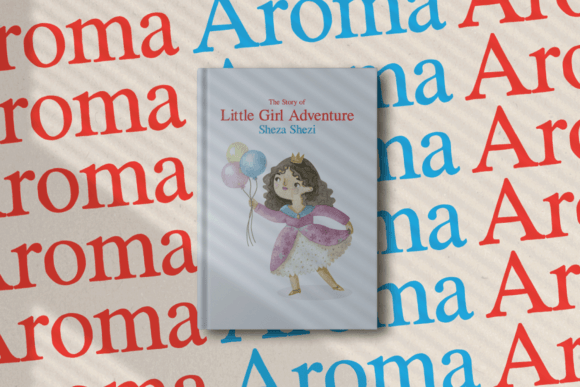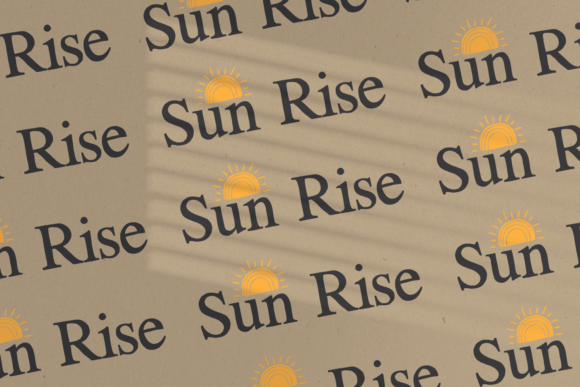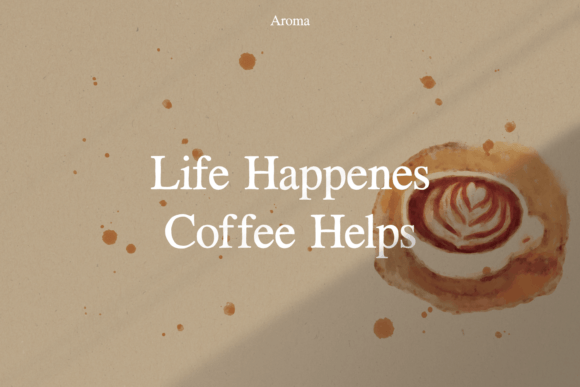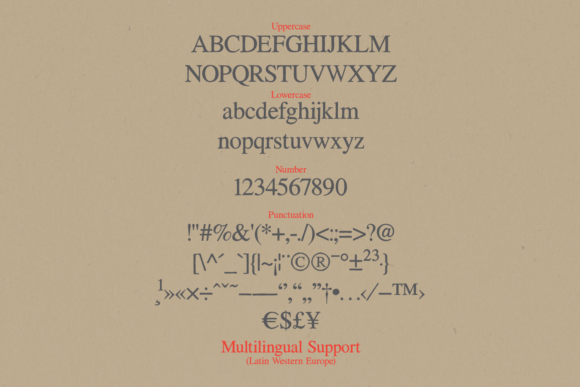
This typeface, called Aroma, was made using digital pencil strokes to give it a modern touch while still drawing inspiration from the New Time Roman font. The youthful beauty of classic serif typography combined with the accuracy and fluidity of digital graphics provides a beautiful blend of artistic expression and elegance in this design.
Aroma Font is a digital masterpiece that embraces the capabilities of the digital world while paying attention to history. It is more than just letters on a screen. Elevate your typography with Aroma Font’s distinct charm, which combines modern and classic elements into a symphony of digital pencil strokes.